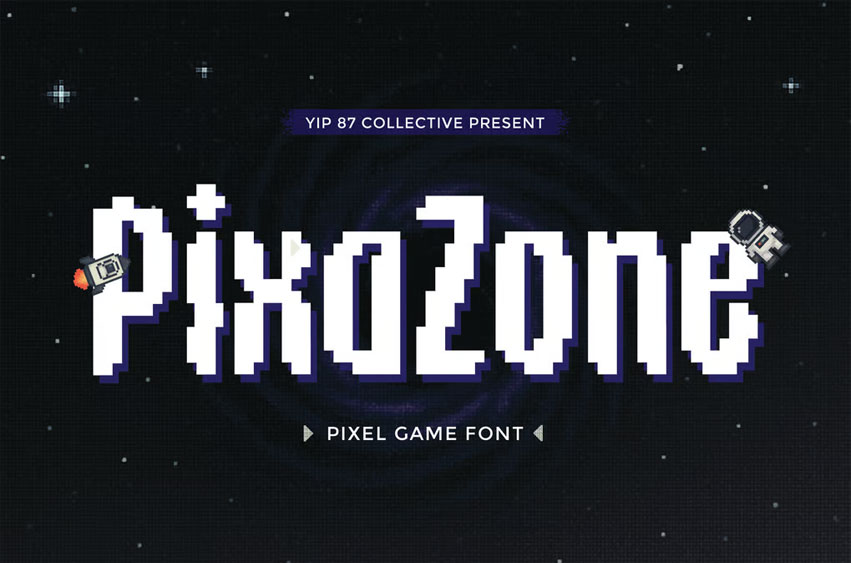
PixaZone Font
PixaZone Font is a pixel-style font designed for gamers, retro lovers, and digital creators. With its sharp, blocky design inspired by 8-bit and 16-bit classic video games, this typeface is perfect for game UI, YouTube thumbnails, Twitch overlays, posters, and pixel art designs. It delivers nostalgic arcade vibes while staying modern and readable in digital spaces. Whether you’re crafting a game title screen or retro-futuristic branding, PixaZone powers your project with bold, nostalgic charm.